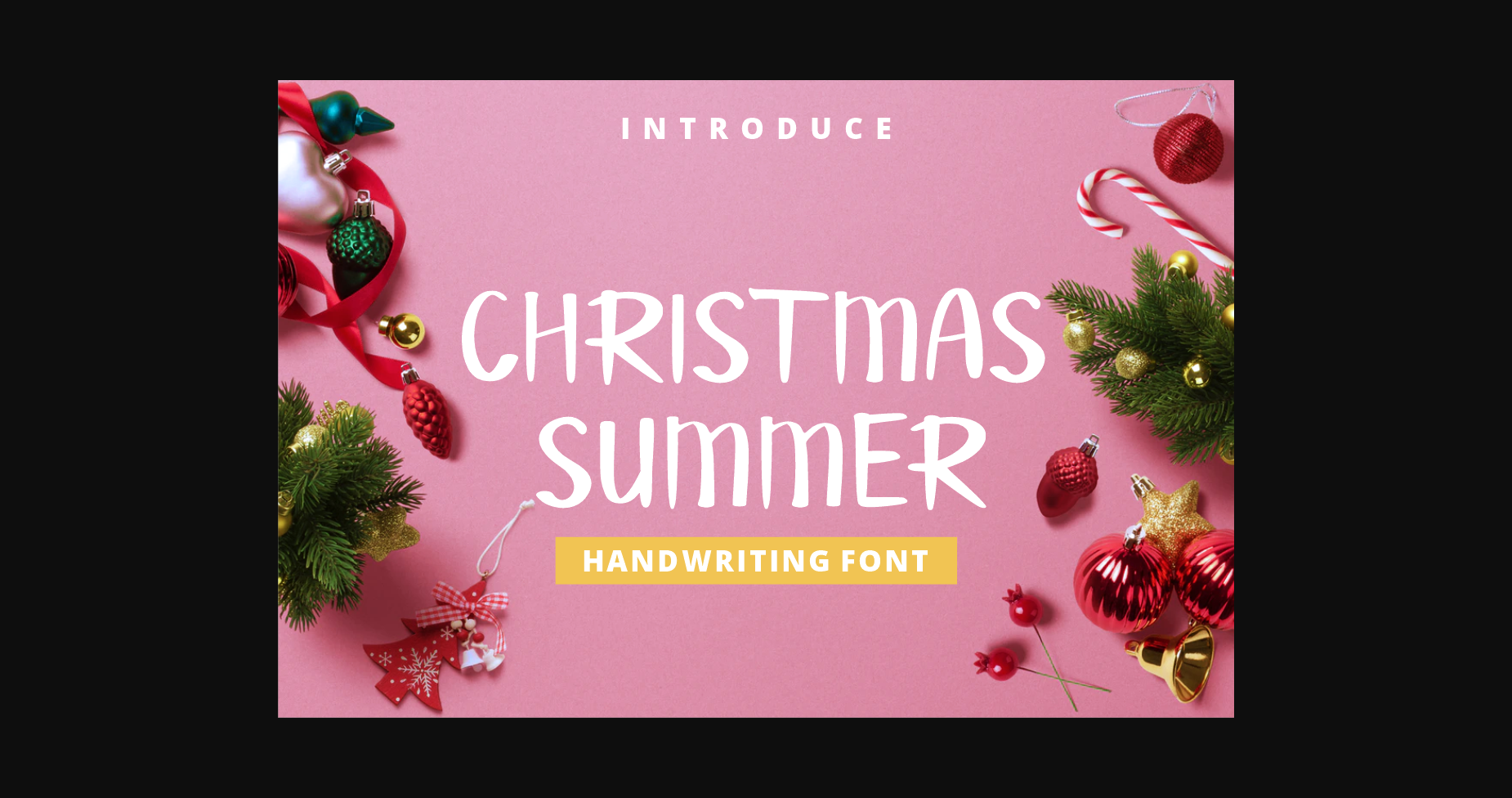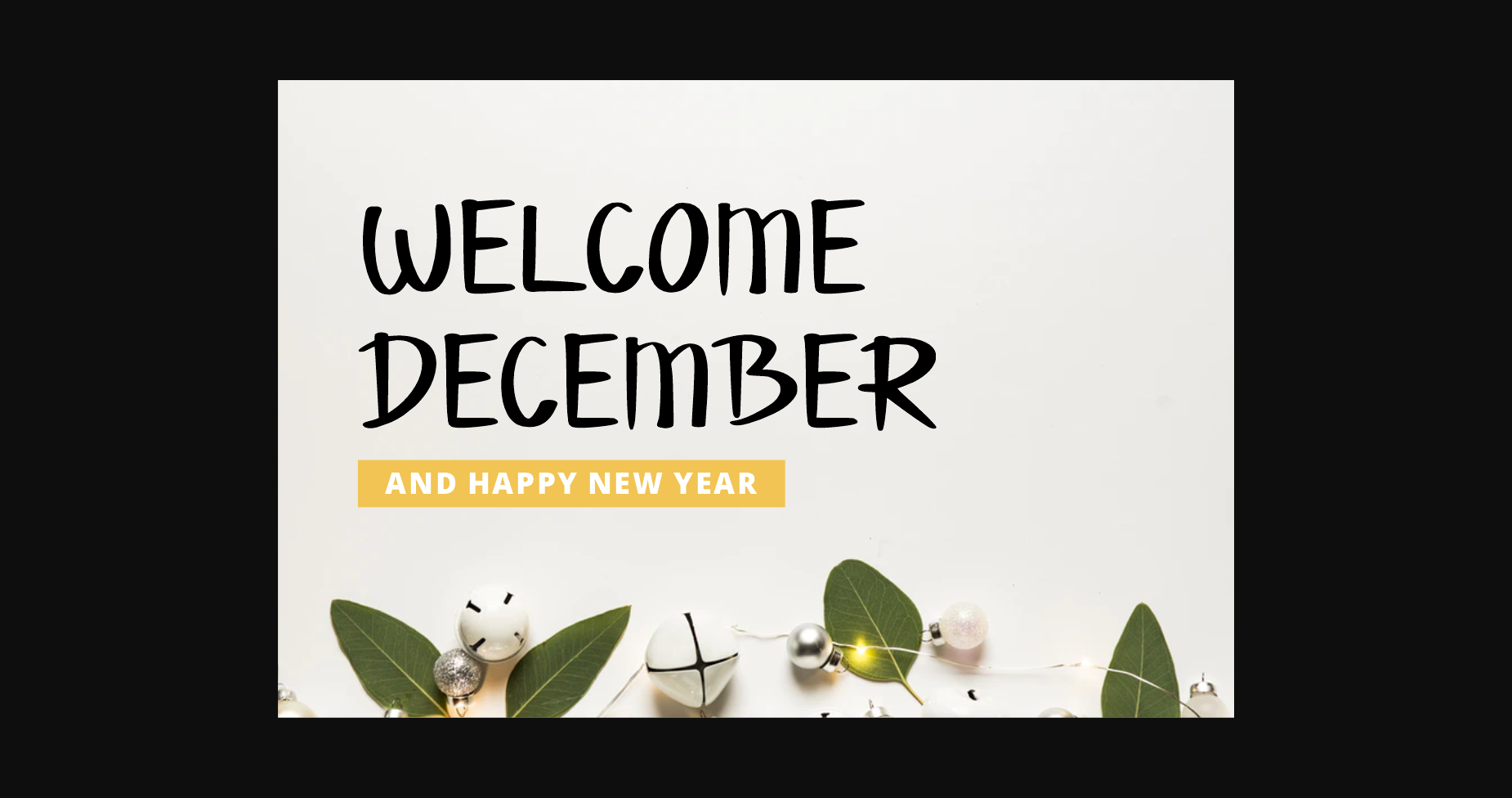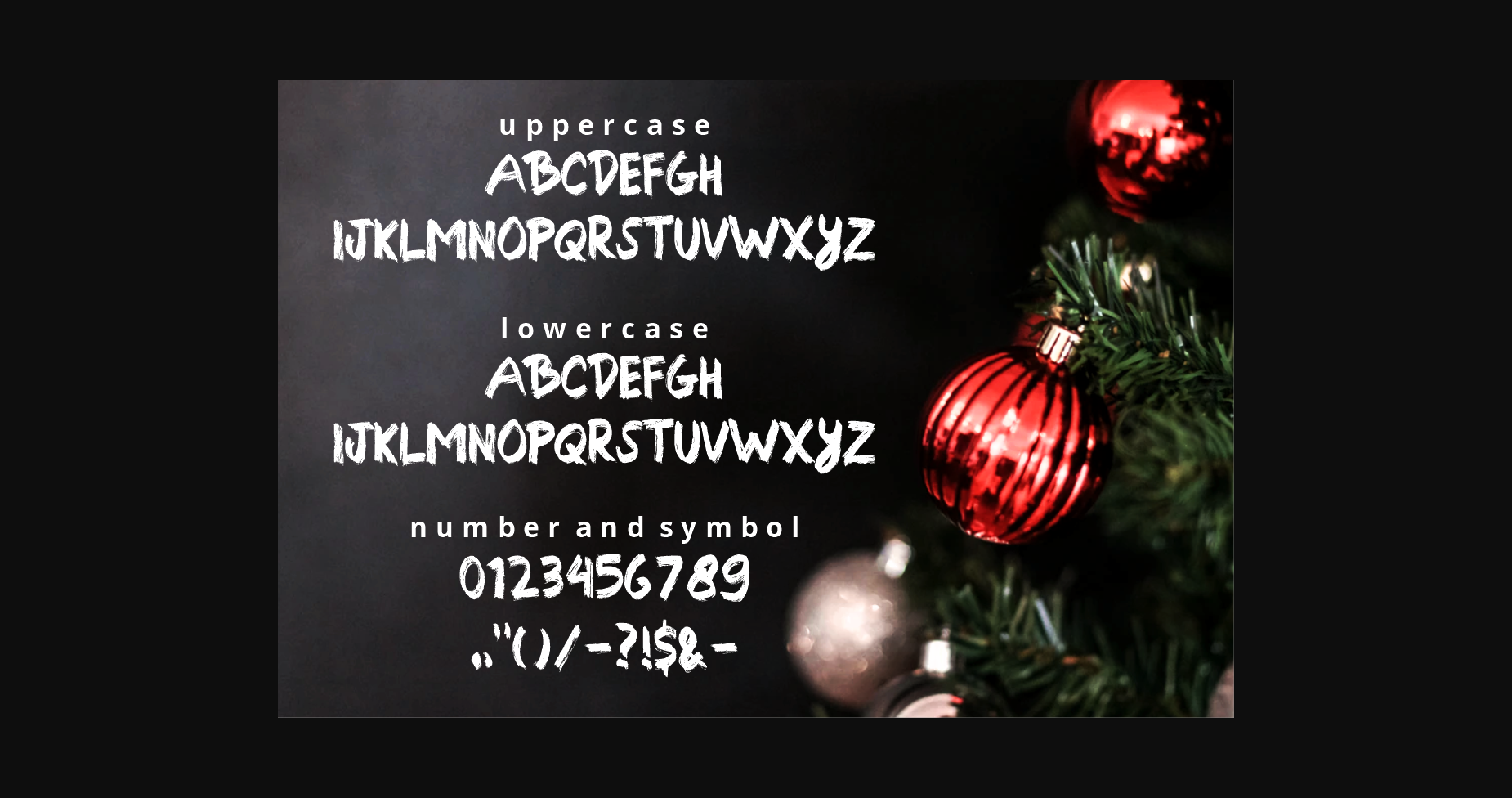
About Christmas Summer Font
Christmas Summer is organic handwritten font. This font will make your designs look natural, authentic, and amazing. Christmas Summer is suitable for logotype design, typography, branding, advertising, clothing, and many more.